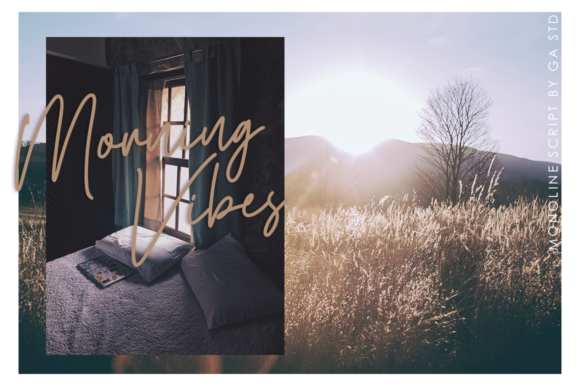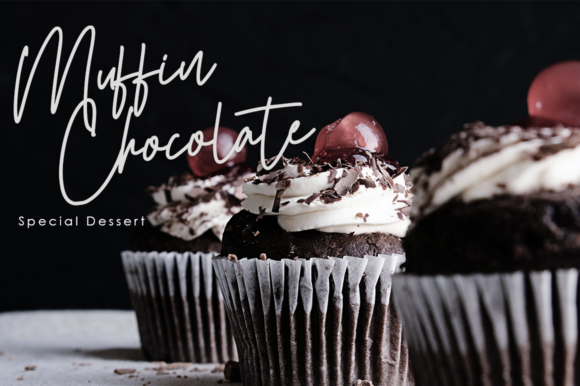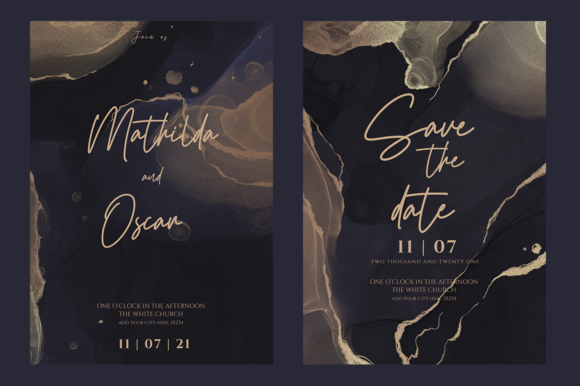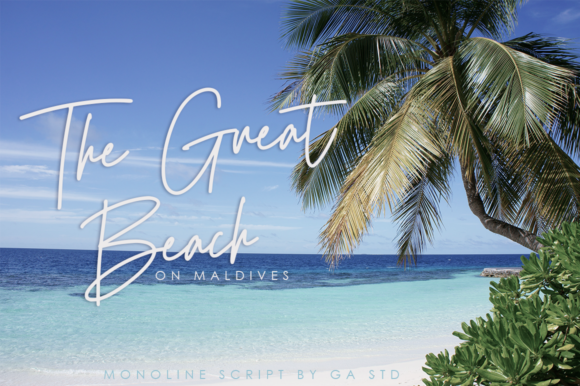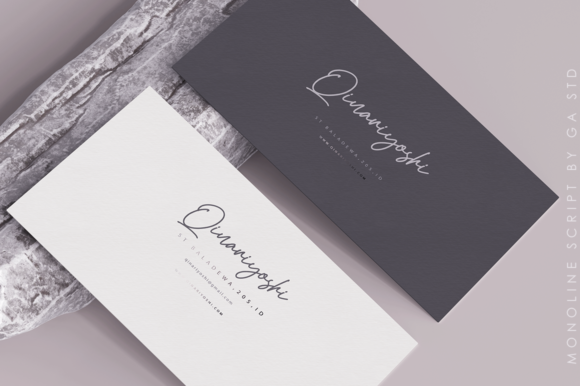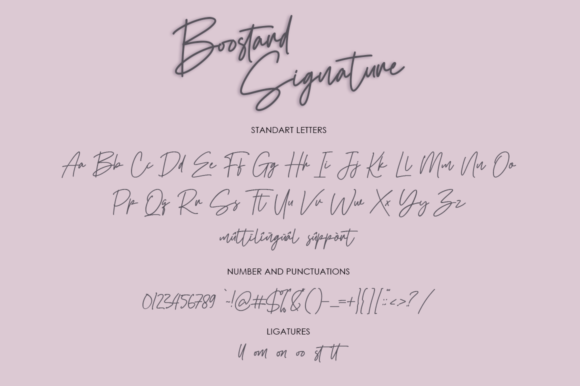
The Perfect Signature: Elevating Your Brand with the Boostard Signature Font
There’s nothing quite like the thrill of bringing a new project to life. You’ve poured your heart and soul into the concept, and now it’s time to give it a voice. For designers, this moment is all about finding the perfect font to convey the essence of your idea. It’s in these moments that the right font can make all the difference, elevating your brand and leaving a lasting impression on your audience.
Enter the Boostard Signature Font, a stunning monoline script typeface that’s sure to capture the attention of even the most discerning viewer. With its elegant characters and natural strokes, this font is the perfect choice for logo/branding projects, large header text, product packaging, and signatures. Whether you’re looking to create a sophisticated look or add a touch of whimsy to your design, the Boostard Signature Font is a valuable addition to any designer’s toolkit.
Boostard Signature Font Key Features
- Size and Resolution: This font is designed to work well at various sizes, from 12pt to 48pt, with a recommended resolution of 300 DPI for optimal display.
- Unique Characteristics: The Boostard Signature Font features a distinctive, hand-drawn style with bold lines and a unique blend of modern and classic elements, making it ideal for creating eye-catching signatures and logos.
- Script Variations: This font includes multiple script variations, allowing users to choose from a range of styles and flourishes to suit their individual needs and preferences.
Boostard Signature Font Review
I recently had the chance to work with the Boostard Signature Font, and I must say, it’s a unique addition to any design project. Here’s my honest take on what makes it tick.
- ✨ Customization: The font offers a wide range of customization options, making it easy to tailor the look to fit your design goals.
- ✨ High-quality glyphs: The font’s glyphs are well-designed and display crisply, even at smaller font sizes.
- ⚠️ Limited language support: The font only includes a limited set of languages, which may be a problem for projects requiring extensive multilingual support.
- ⚠️ Not ideal for small text: While the font looks great at larger font sizes, it can become difficult to read at smaller sizes due to its unique design.
Overall, I’d say the Boostard Signature Font is a great addition to any designer’s toolkit, especially for projects requiring a touch of elegance and sophistication. However, it’s not a one-size-fits-all solution, and designers should be aware of its limitations before making a purchase.
Getting the Most Out of Boostard Signature Font
Use the Boostard Signature Font to add a touch of elegance and sophistication to your designs. Tips include:
- Using it for titles and headings to create a bold statement.
- Pairing it with a sans-serif font for a clean and modern look.
- Experimenting with different font sizes and colors to create visual interest.
The Boostard Signature Font is perfect for:
- Business cards and resumes.
- Marketing materials and brochures.
Q: What is the recommended font size for using the Boostard Signature Font?
The recommended font size for the Boostard Signature Font is between 12pt and 24pt. This range provides optimal readability and legibility for most design applications. However, feel free to experiment with different font sizes to achieve the desired visual effect.